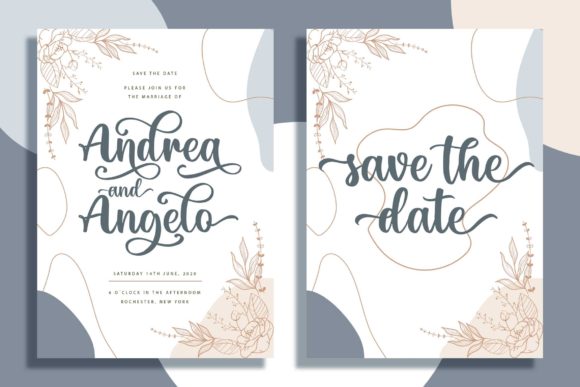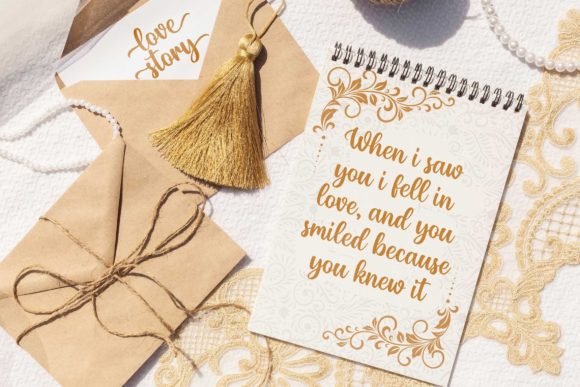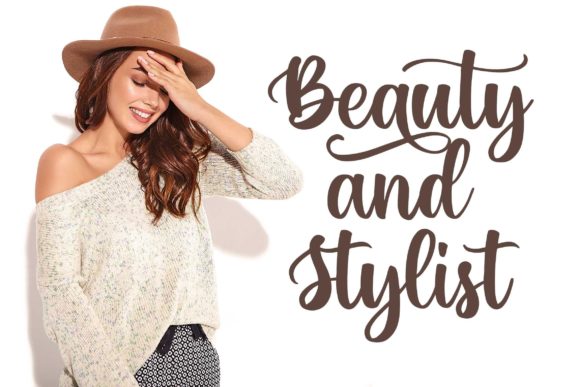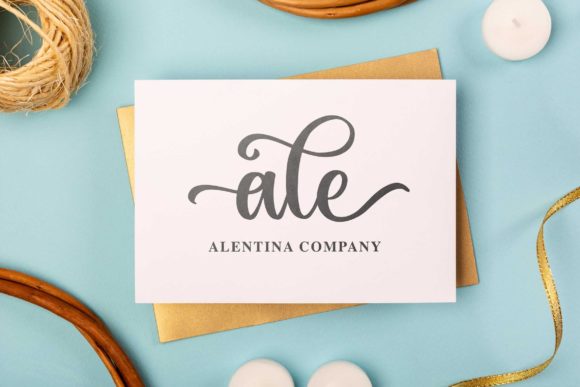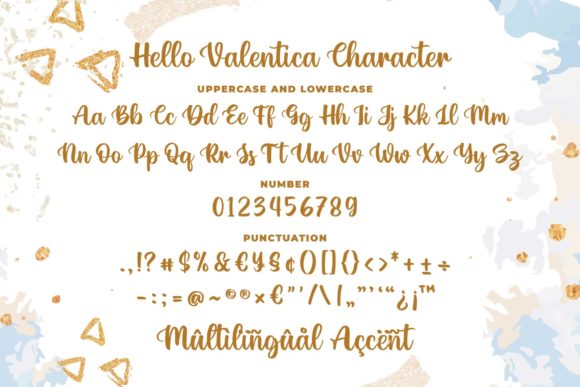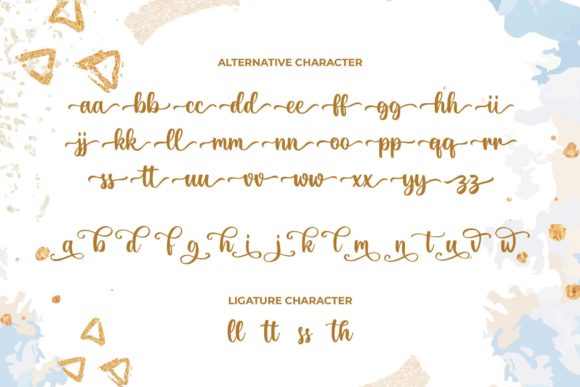
Unleash Your Creativity with the Perfect Font
Have you ever been working on a project, pouring your heart and soul into it, only to feel like something’s missing? That’s when you know it’s time to bring in the perfect font to elevate your design. For me, it was the moment I discovered Hello Valentica Font – a masterpiece that has become my go-to choice for any project that needs a touch of elegance and sophistication.
Hello Valentica Font is more than just a beautiful font; it’s a tool that can take your designs to new heights. With its classic calligraphic influences and modern twist, it’s the perfect combination for creating a lasting impression. Whether you’re a seasoned designer or just starting out, this font is an invaluable addition to your toolkit. Its versatility and unique charm make it a valuable asset for any project, from weddings to branding and beyond.
Hello Valentica Font Key Features
- Unique Characteristics: This font features a unique blend of modern and vintage elements, with a distinctive curved design that adds a touch of elegance and sophistication to any text.
- Font Pairing: Hello Valentica Font is designed to be paired with a variety of other fonts, making it an excellent choice for creating visually appealing and harmonious typography.
Hello Valentica Font Review
I recently had the chance to work with the Hello Valentica Font, and I have to say it’s a mixed bag. Let’s start with the good stuff: ✨ the font’s unique, cursive style is perfect for adding a touch of elegance to any design project. The flowing lines and gentle curves make it ideal for creating a romantic or whimsical atmosphere. Additionally, the font’s versatility shines through in its various weight options, which allow you to adjust the level of sophistication to suit your needs.
However, there are a few limitations to consider: ⚠️ the font’s readability can suffer in certain situations, particularly at smaller font sizes or when used in block paragraphs. Additionally, the font’s cursive style can make it difficult to read for those with vision impairments. It’s also worth noting that the font’s unique style can sometimes feel overused or clichéd, which may not be ideal for projects that require a more subtle approach.
Overall, I’d say the Hello Valentica Font is a great choice for designers who want to add a touch of romance or whimsy to their projects, but may not be the best fit for every design scenario. With some careful consideration of the font’s limitations and a thoughtful approach to its use, however, it can be a valuable addition to any designer’s toolkit.
- Unique, cursive style
- Various weight options
- Perfect for romantic or whimsical designs
- May struggle with readability at smaller font sizes
- May not be ideal for projects requiring a more subtle approach
Practical Application Guide for “Hello Valentica Font”
“Hello Valentica Font” is suitable for a variety of design projects, including:
– Baby shower and birthday party decorations
– Valentine’s Day and holiday-themed designs